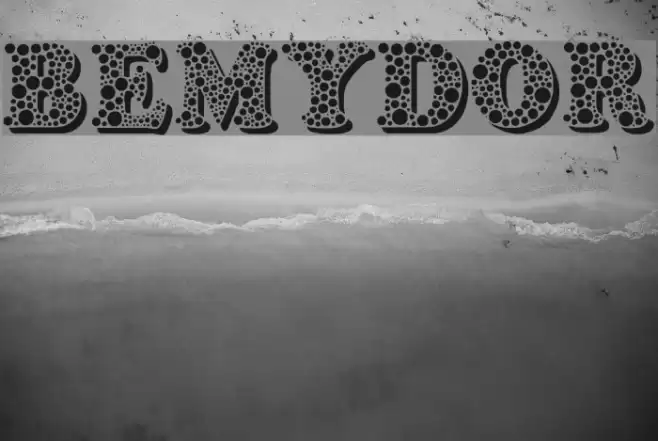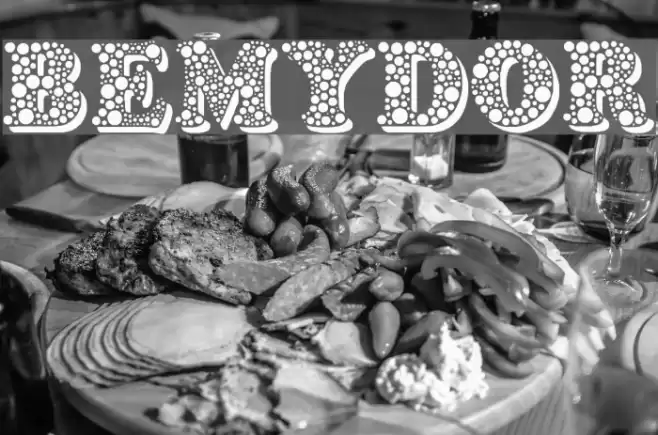
Bemydor Font
Bemydor Description
This font features a unique and playful design with a polka dot pattern filling each character. The letters are bold and have a decorative flair, making them stand out with a whimsical and fun appearance. The uppercase letters are consistent in style, with rounded edges and a uniform dot pattern that creates a textured look. This font is ideal for projects that require a touch of creativity and playfulness, such as children's books, party invitations, or any design that aims to capture attention with its distinctive style.
A playful, polka dot patterned decorative font with bold, rounded characters from bubble letter fonts.
- Proposed Projects: Ideal for children's books, party invitations, playful branding, and eye-catching posters.
- Overall Style: Playful, Whimsical
- Use Case: Headlines, Logos, Decorative text